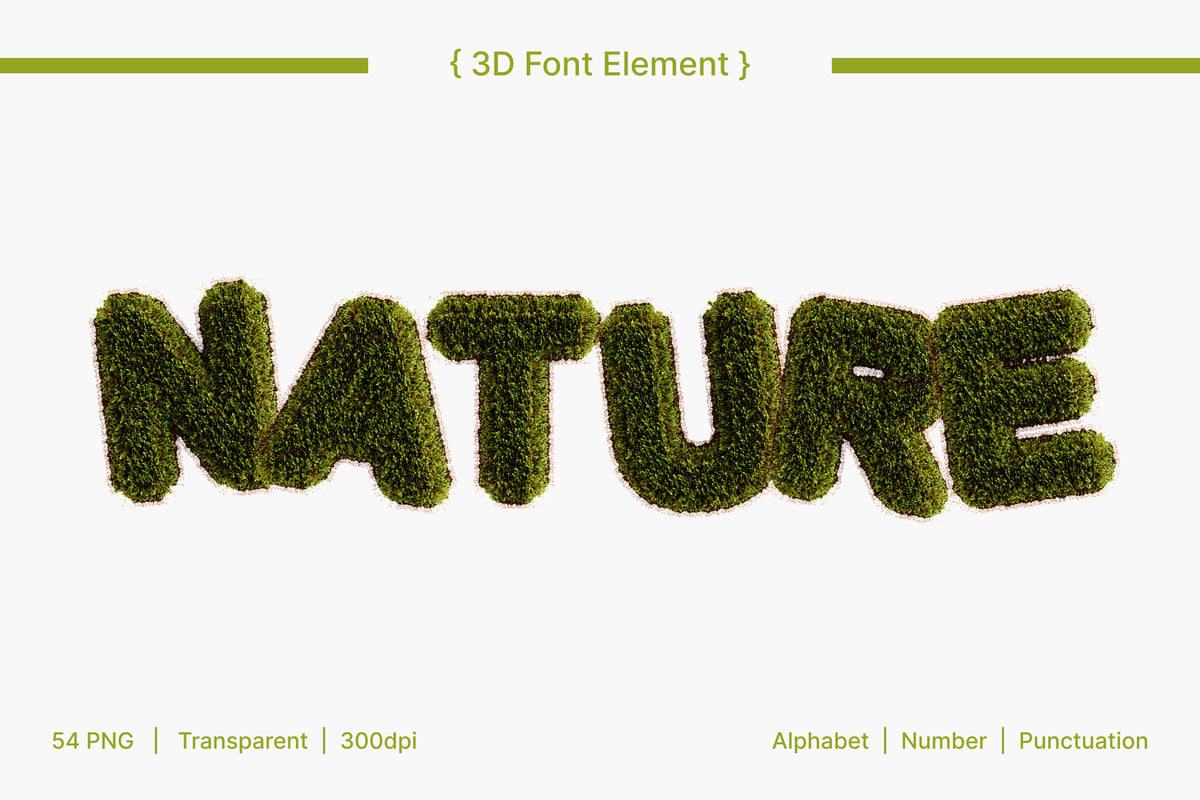
Nature Fonts 3D Icon Set
54 lush, grass-textured 3D letter icons — nature-inspired typography that grows your designs.
The Nature Fonts 3D Icon Set is a one-of-a-kind collection of high-quality 3D font elements crafted entirely from dense green grass textures. Every character — from the full alphabet to numbers and punctuation — is shaped with soft, bushy detail and natural irregular edges, delivering a realistic "grown from nature" look that feels fresh, playful, and visually distinct.
The consistent thickness and rounded forms keep each character highly readable while preserving a handcrafted, eco-inspired charm that stands out in any layout.